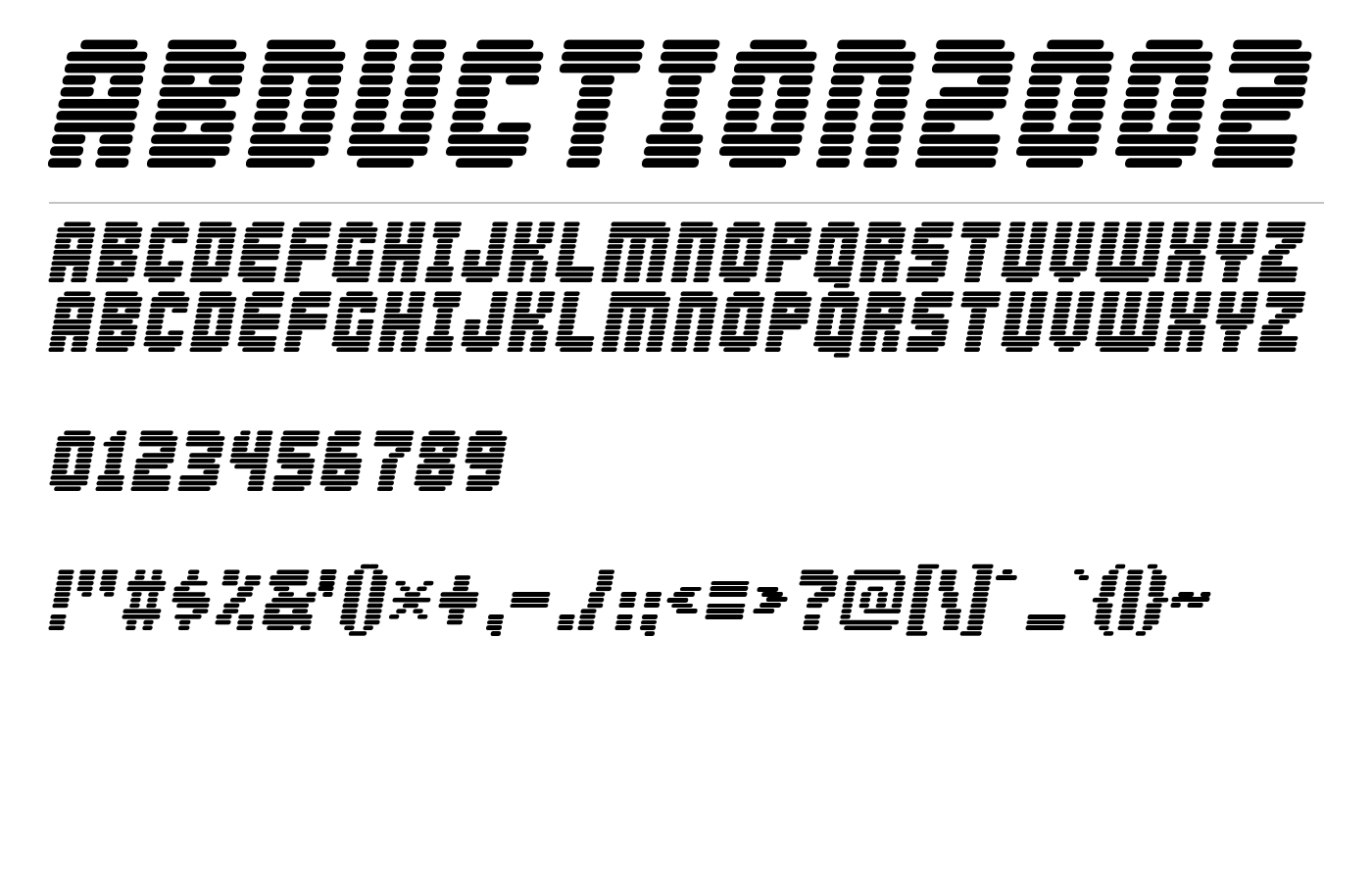
Abduction2002 is a bold, condensed sans serif display font characterized by its horizontal striped pattern and italicized, futuristic vibe. Its geometric, tech-inspired letterforms with angled strokes and unique segmented style make it ideal for eye-catching headlines, branding, and designs that want a dynamic, modern, and digital feel. This font works best in creative projects needing a strong, high-tech personality.
Abduction2002 Font
About Abduction2002 Font